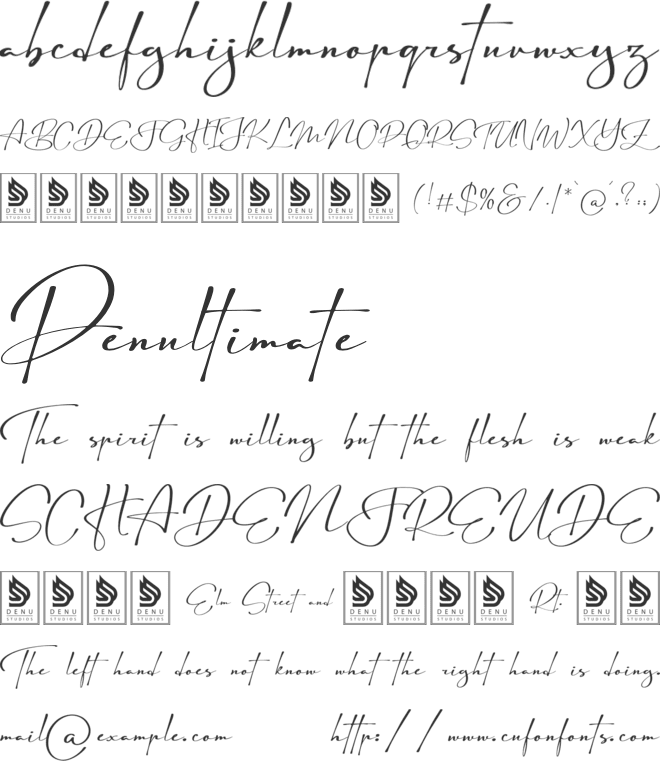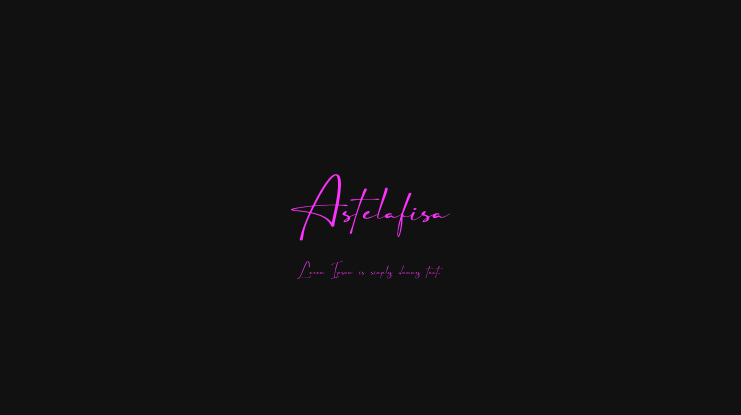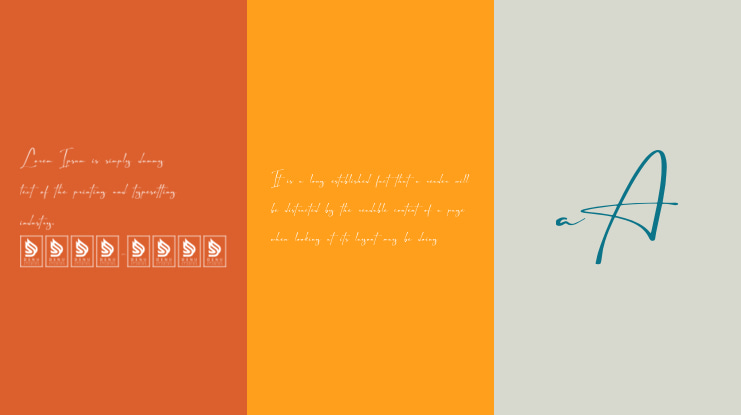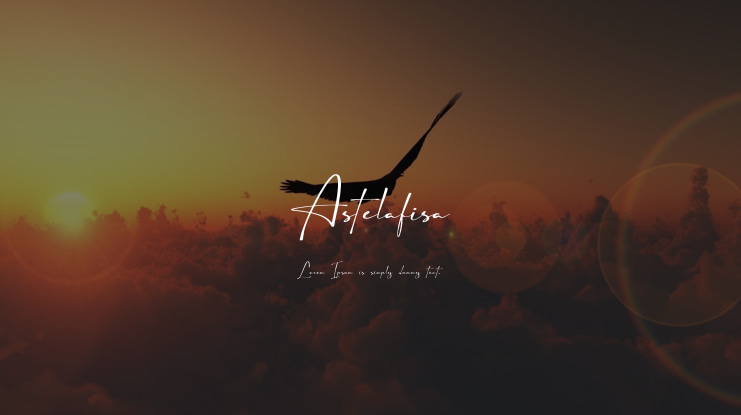
Astelafisa | Classic Signature Font product packaging, mugs, quotes, posters, shopping bags, t-shirts, book covers, name card, invitation cards, greeting cards, label, photography, watermark, special events, and all your other lovely projects that need a Classic Signature Font taste.